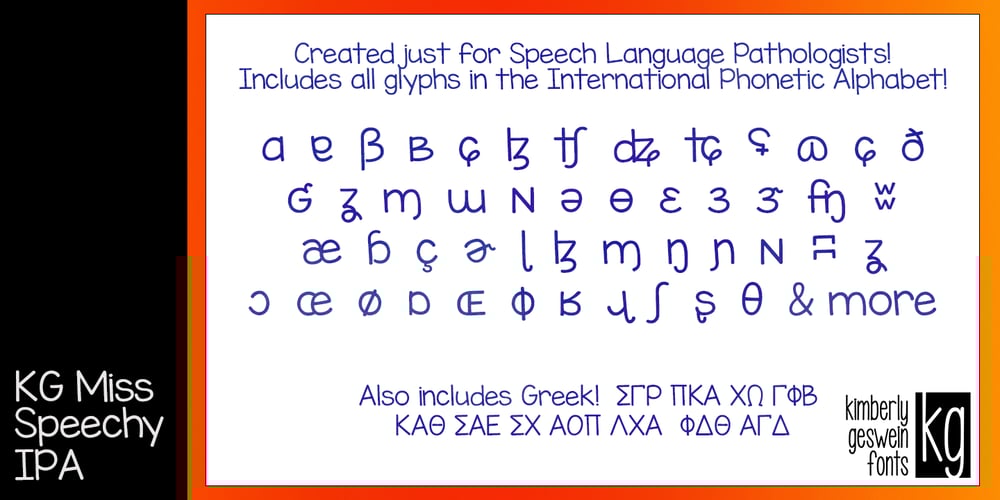
KG Miss Speechy IPA
KG Miss Speechy IPA font
KG Miss Speechy IPA Font Family was designed by Kimberly Geswein and published by Kimberly Geswein. KG Miss Speechy IPA contains 1 styles and family package options. This font was created out of a desire to offer a kid-friendly, playful, legible font that works for my speech language pathologist friends who work with students every day. They wanted something that worked for little kids and allowed them to use the necessary international phonetic alphabet.